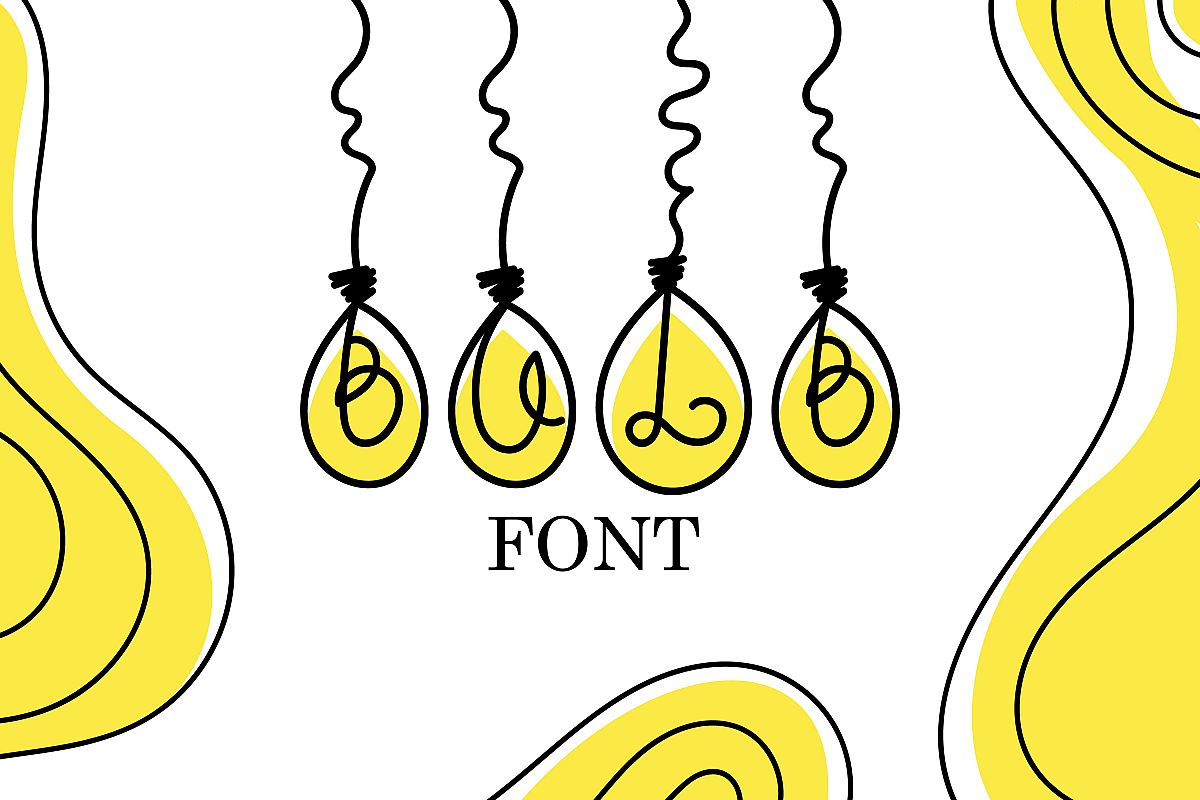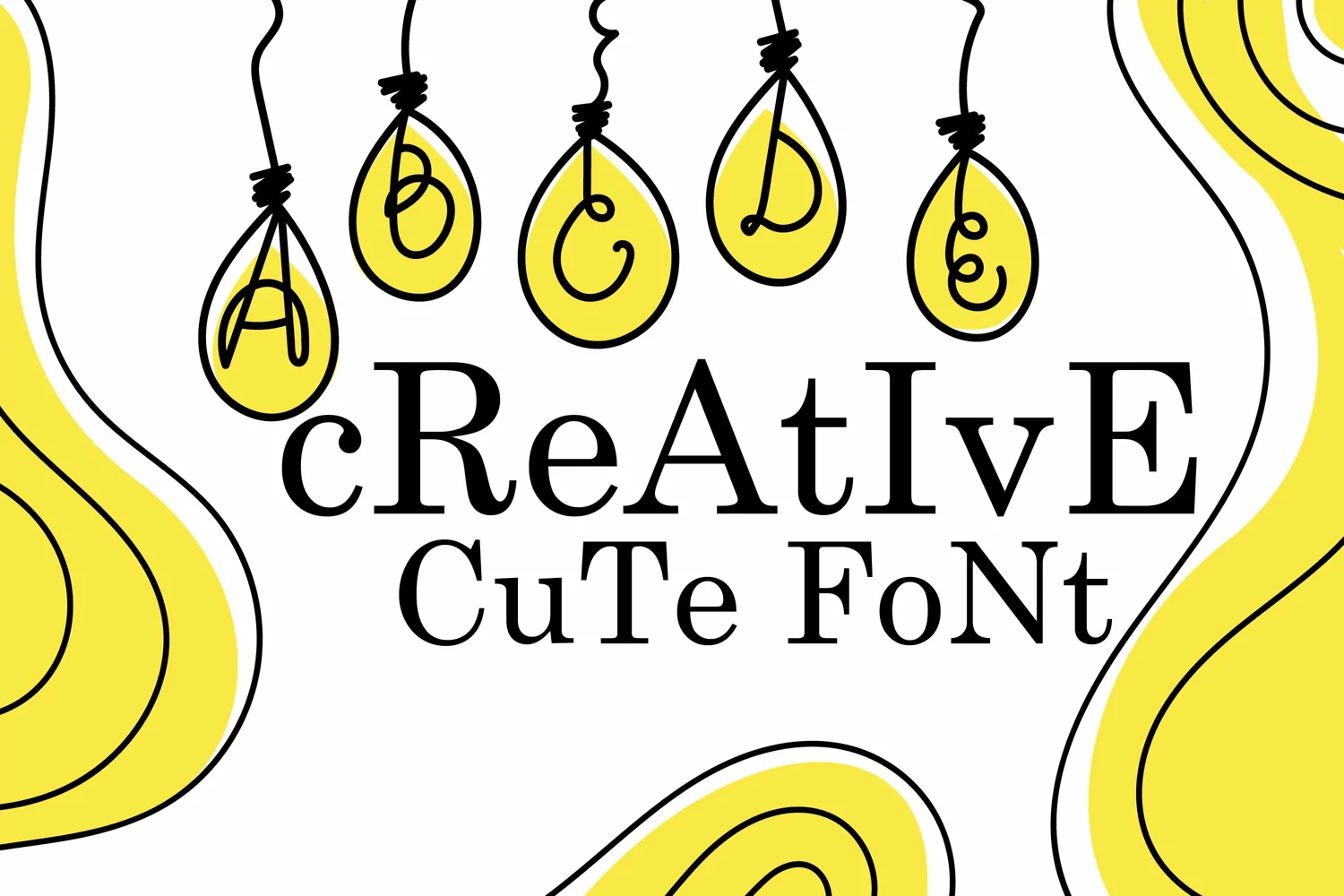
Bulb Font - A Cute Hanging Bulb Font
a cute hanging bulb font is ready for you to make amazing funny projects, kids classroom decoration, even for shirts and cups! this will make everyone day when they see's it!
1- Bulb shape hand drawn alphabets